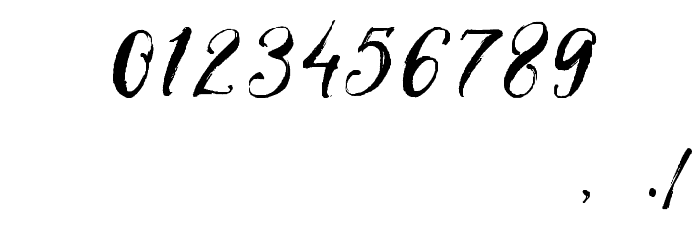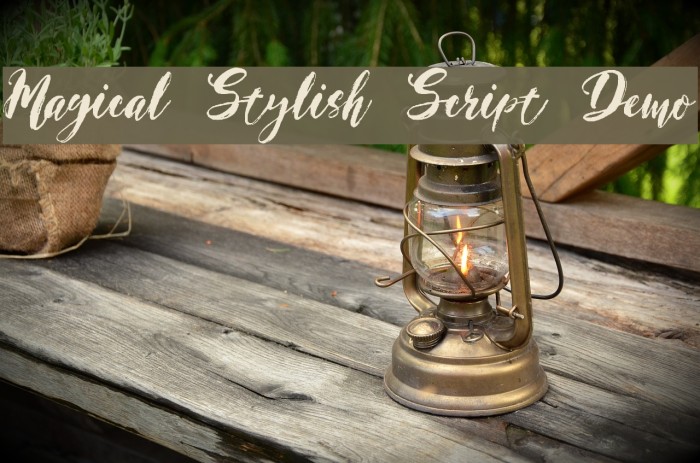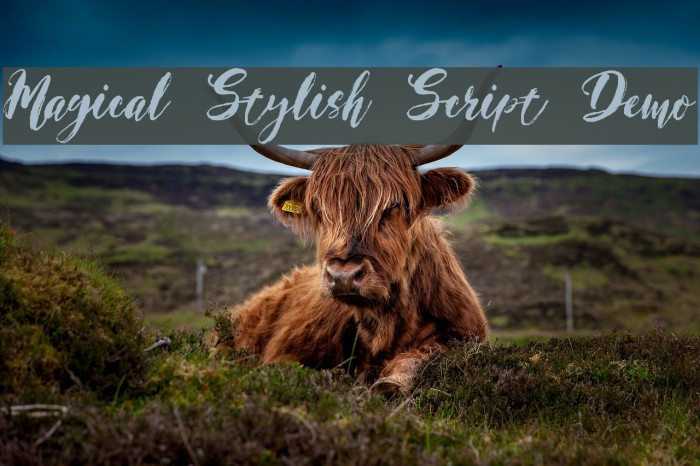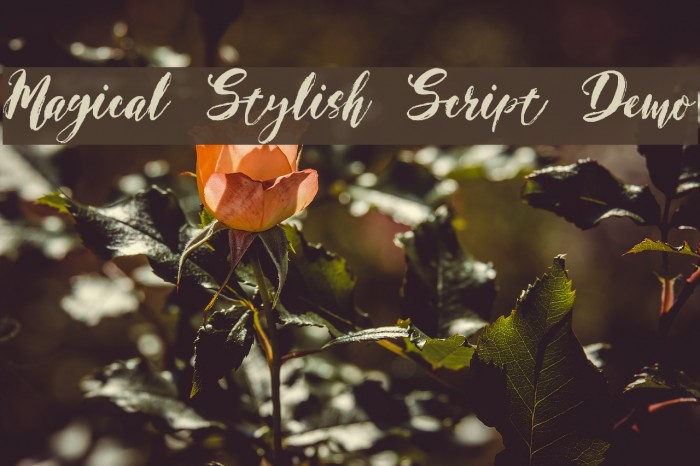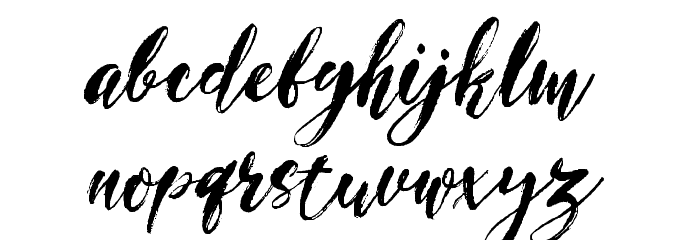
Magical Stylish Script Demo Font
Magical Stylish Script Demo Description
This font exudes a whimsical and elegant charm, characterized by its flowing script style. The letters are crafted with a calligraphic flair, featuring smooth curves and varying stroke widths that add a dynamic and artistic touch. The uppercase letters are bold and expressive, while the lowercase letters maintain a graceful continuity. The numerals and special characters are designed to complement the overall aesthetic, making it suitable for creative and decorative applications. The font's artistic strokes and fluidity make it ideal for projects that require a touch of sophistication and creativity.
A whimsical and elegant script font with flowing, calligraphic strokes from Uncategorized fonts.
- Proposed Projects: Ideal for wedding invitations, greeting cards, branding, and artistic projects that require a sophisticated and creative touch.
- Use Case: Logos, Headlines, Invitations